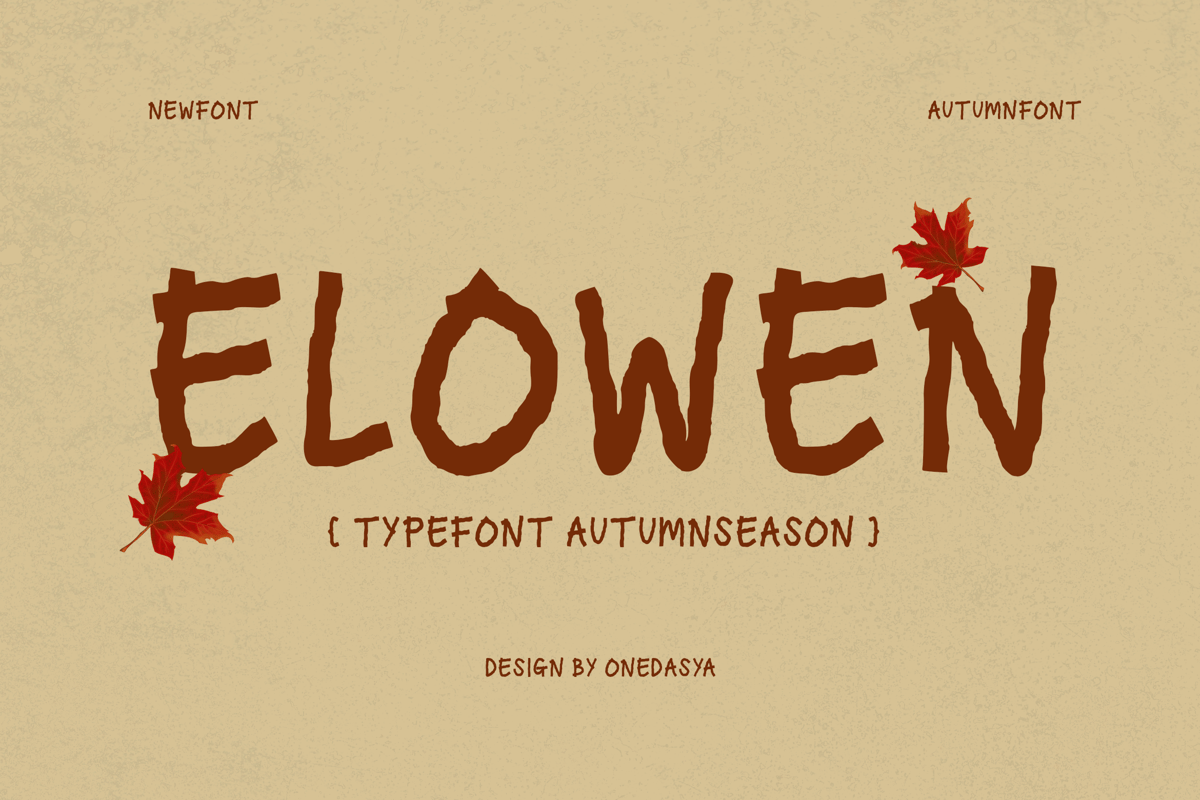
Elowen – Autumn Hand-Drawn Display Font
Capture the warmth and charm of autumn with Elowen, a bold hand-drawn display font built for cozy seasonal creativity.
Elowen is a playful hand-drawn display font inspired by the rich, warm atmosphere of fall. Featuring organic letterforms, a natural handwritten character, and a whimsical touch, Elowen brings a cozy, friendly, and creative personality to every design it touches.
Drawn from the beauty of falling leaves, woodland walks, and golden autumn afternoons, Elowen's bold yet playful appearance makes it a standout choice for both digital and print projects that need a handcrafted seasonal feel.
Perfect for:
- Autumn & Fall Designs
- Seasonal Branding
- Greeting Cards & Invitations
- Posters & Flyers
- Social Media Graphics
- Instagram & Pinterest Content
- T-Shirt & Apparel Designs
- Packaging & Product Labels
- Stickers & Stationery
- Children's & Lifestyle Designs
- Quotes & Typography Artwork
- Logo & Brand Projects
- Craft & Handmade Products
- Blog & Website Headers
Whether you're crafting seasonal branding, merchandise, social media content, or creative typography art, Elowen delivers a warm and playful handmade energy that feels authentically autumn.
Create something cozy, creative, and beautifully autumn-inspired with Elowen!